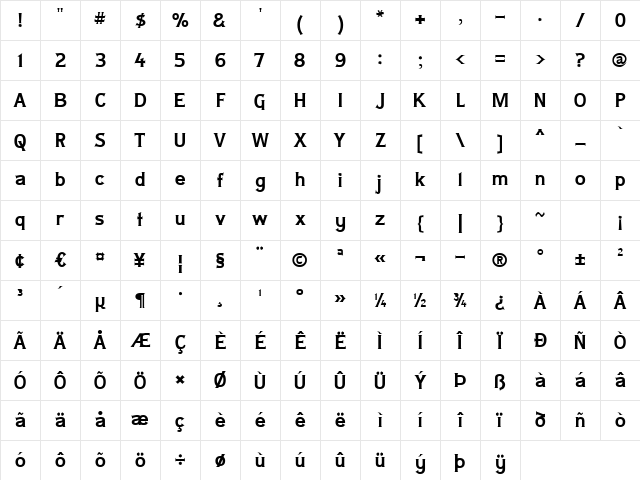
Lady Copra Regular Free Font
Lady Copra Regular
Designer: Graham Meade
Complete Lady Copra Regular glyph index. Displaying only characters natively supported by Lady Copra Regular font.
Design Context for Lady Copra
Lady Copra is a composed and adaptable typeface that performs quietly and consistently across a wide range of design contexts.